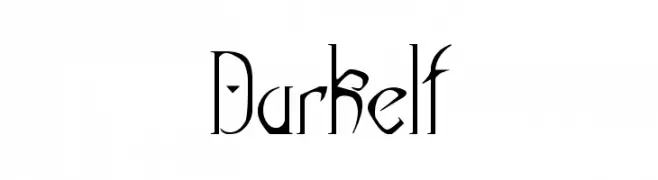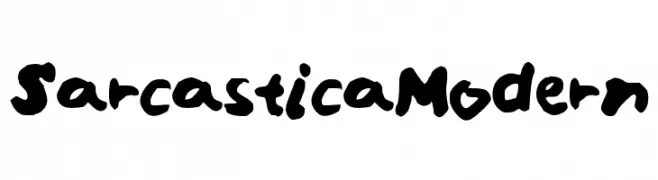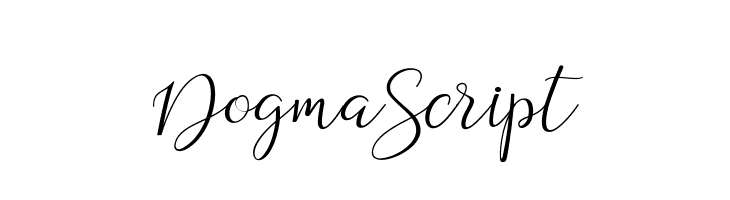
( Jens Cherukad )
A futuristic, striped font with a digital, pixelated aesthetic.
( Jose Tijerín - tijetijeras.wix.com/jose-antonio-tijerin )
A mystical, fantasy-inspired font with sharp, angular serifs and elegant embellishments.
( Just Font You - Ian Irwan Wismoyo - justfontyou.com/ )
A sophisticated, elegant cursive script with a modern touch.
( Lttg )
A bold, playful handwritten font with thick, uneven strokes.
( Lttg )
A playful, bold, and hand-drawn font with a cartoonish style.
( Masinong Studio - creativemarket.com/masinong )
An elegant, flowing script font with a sophisticated cursive style.
( Mathew Taft - www.siteskins.net/ )
A bold, graffiti-inspired font with dynamic, expressive strokes and intricate designs.
( Mr Letters - fontbundles.net/mrletters/rel=mur3FT )
An elegant, flowing script font with smooth, connected strokes and a sophisticated appearance.
( Muhammad Muzammil - fontbundles.net/zoom37-creative )
An elegant script font with flowing, cursive style and intricate flourishes.
( Noah K. )
An elegant, flowing script with intricate curves and a mystical appearance.